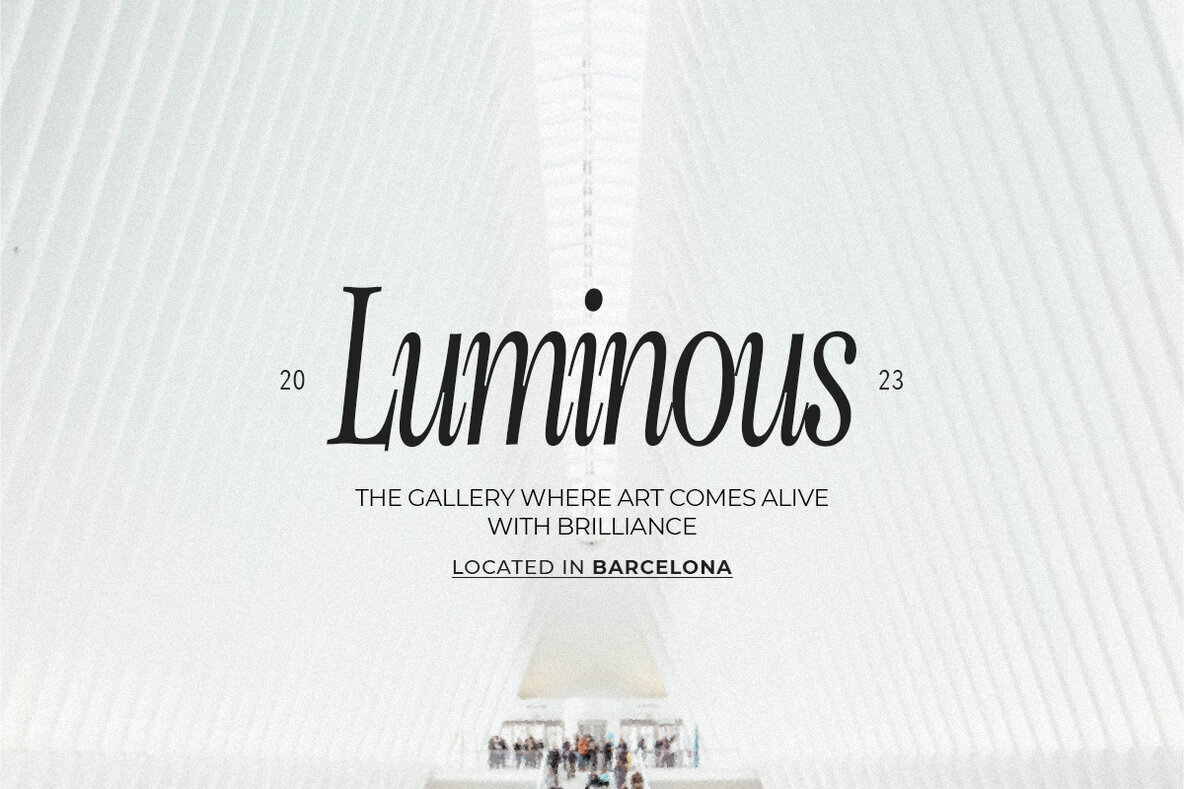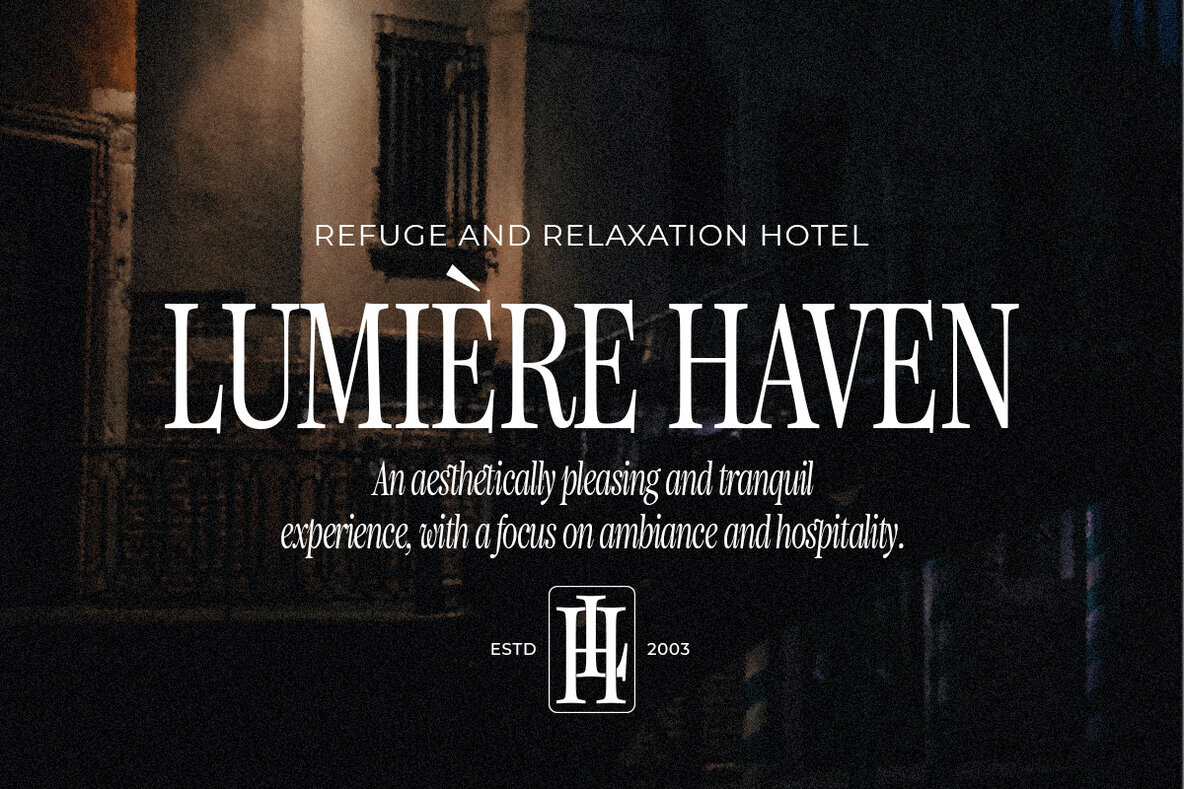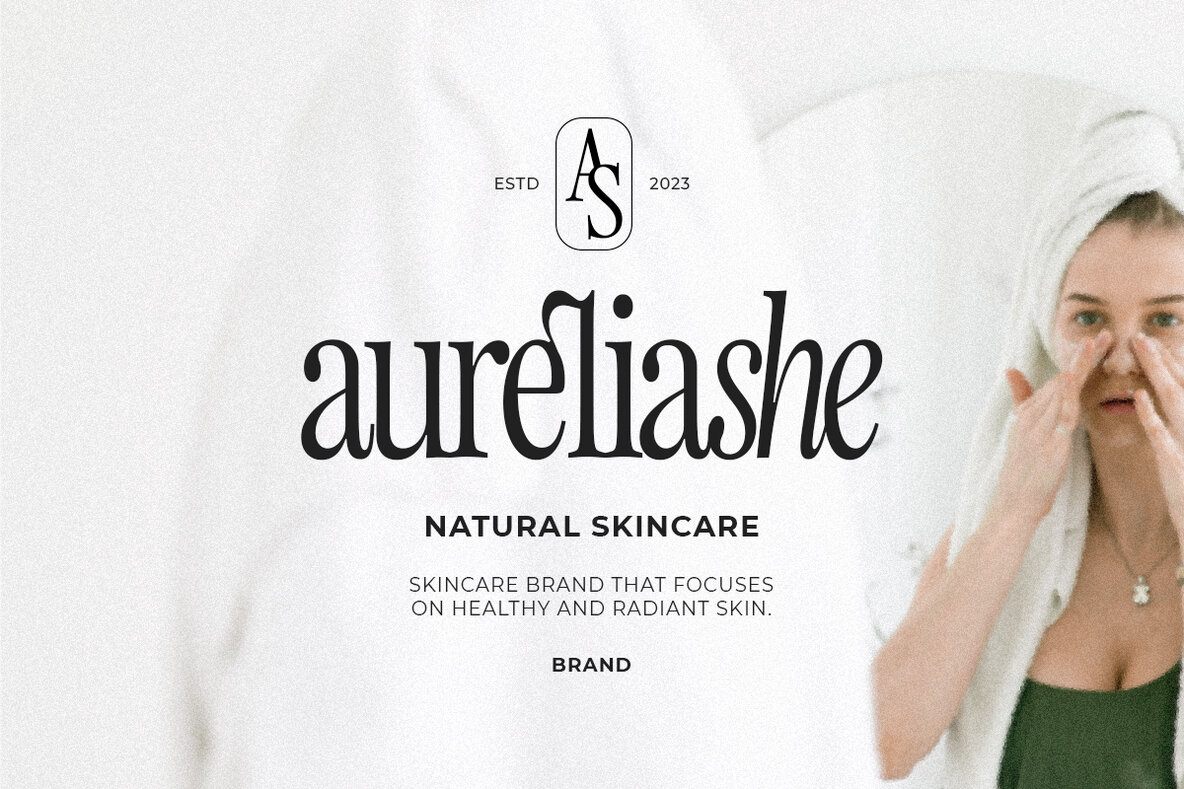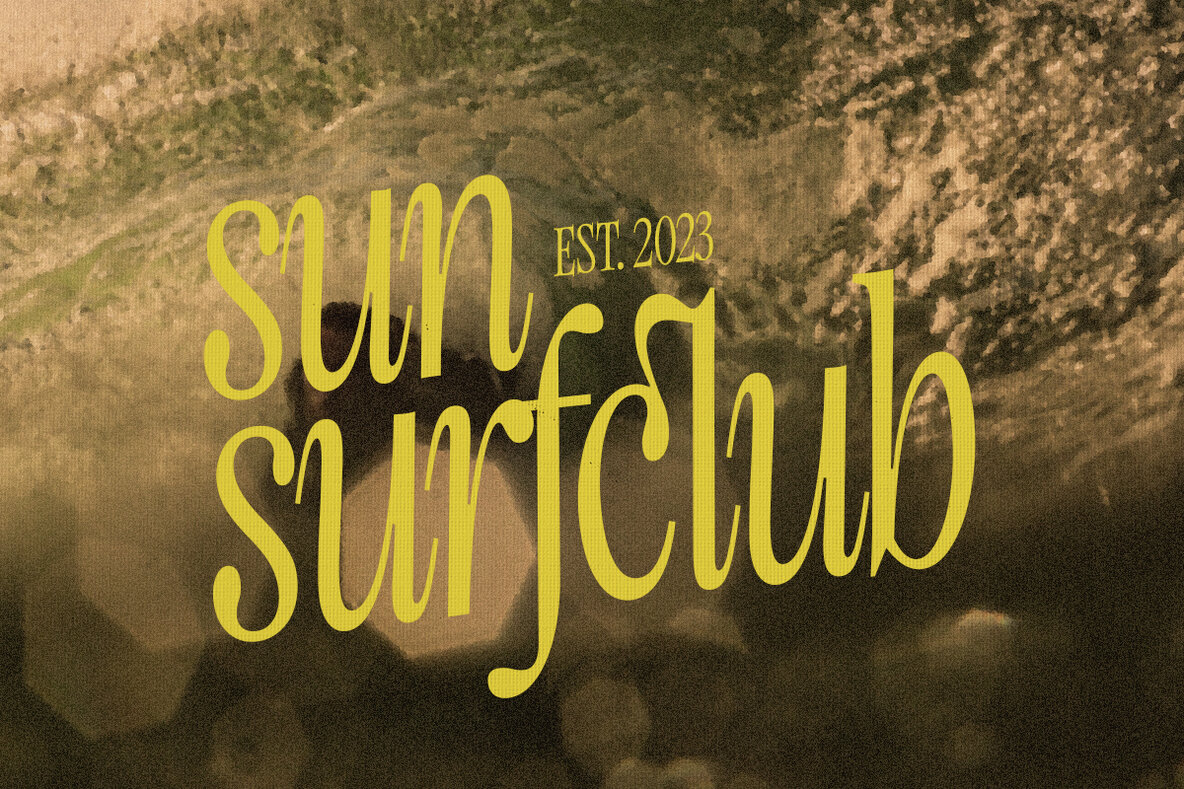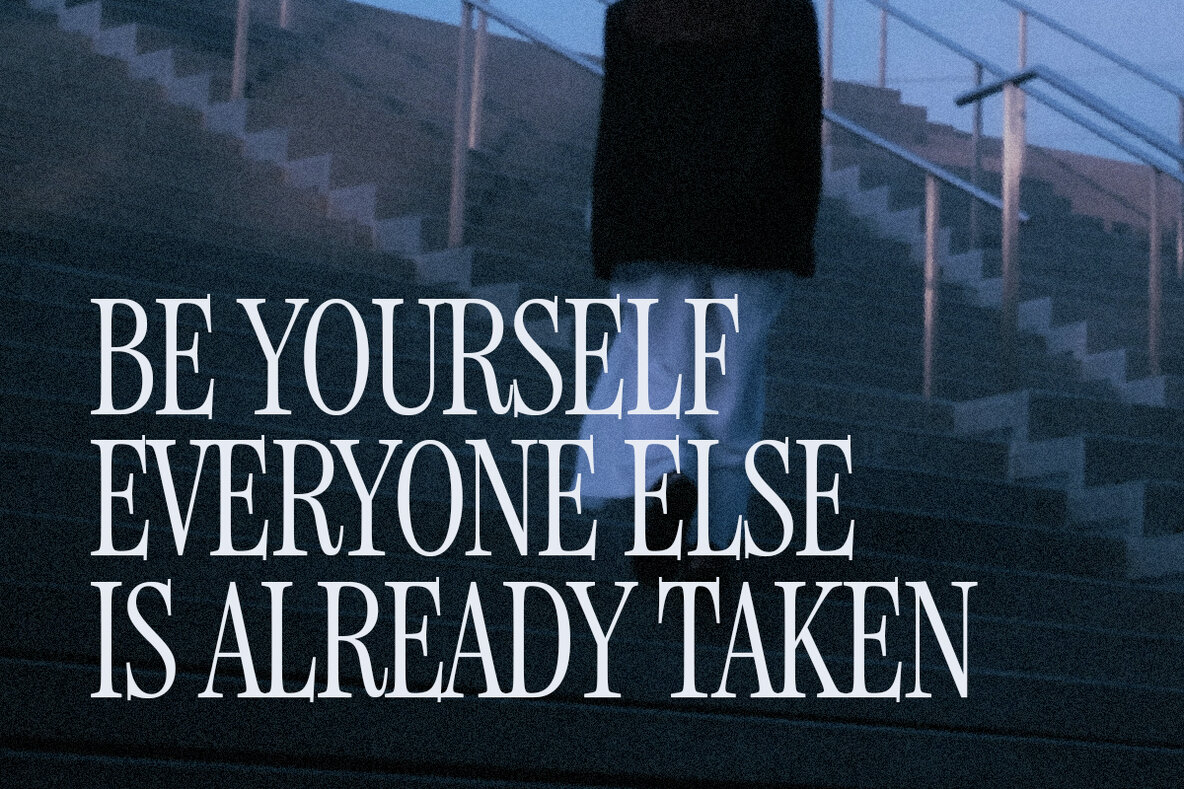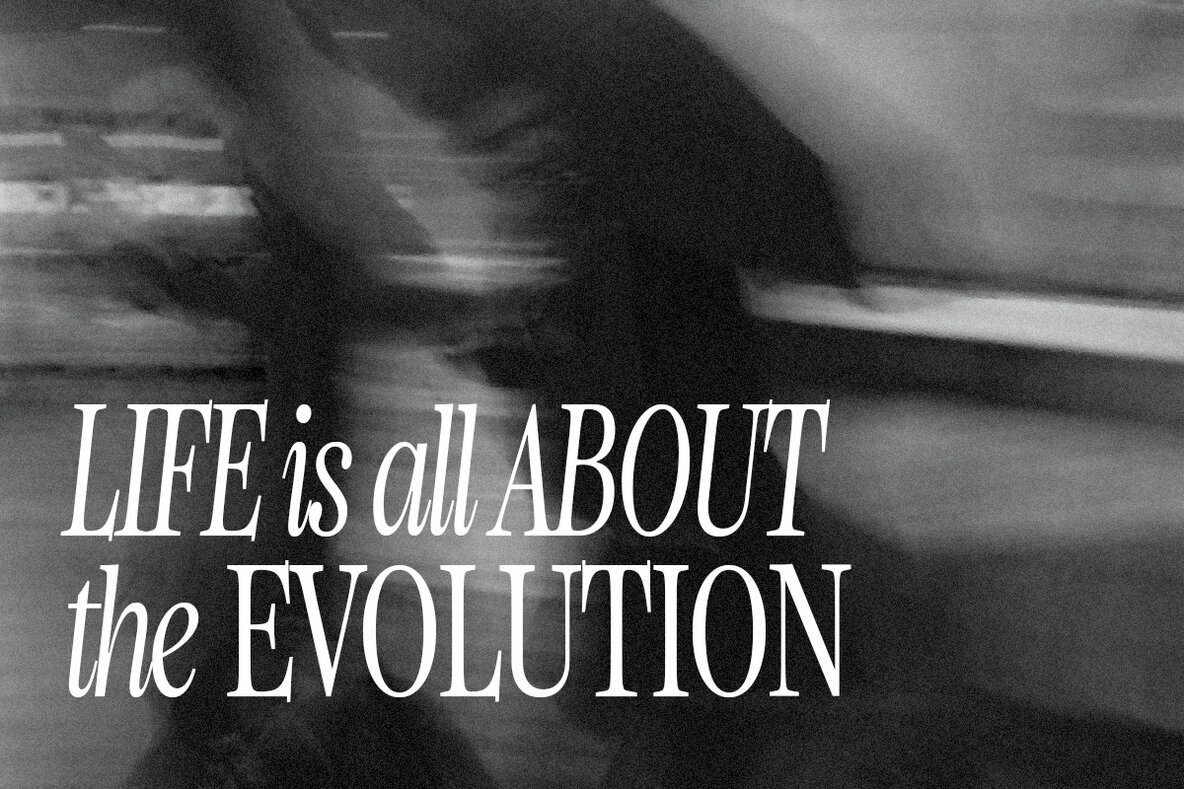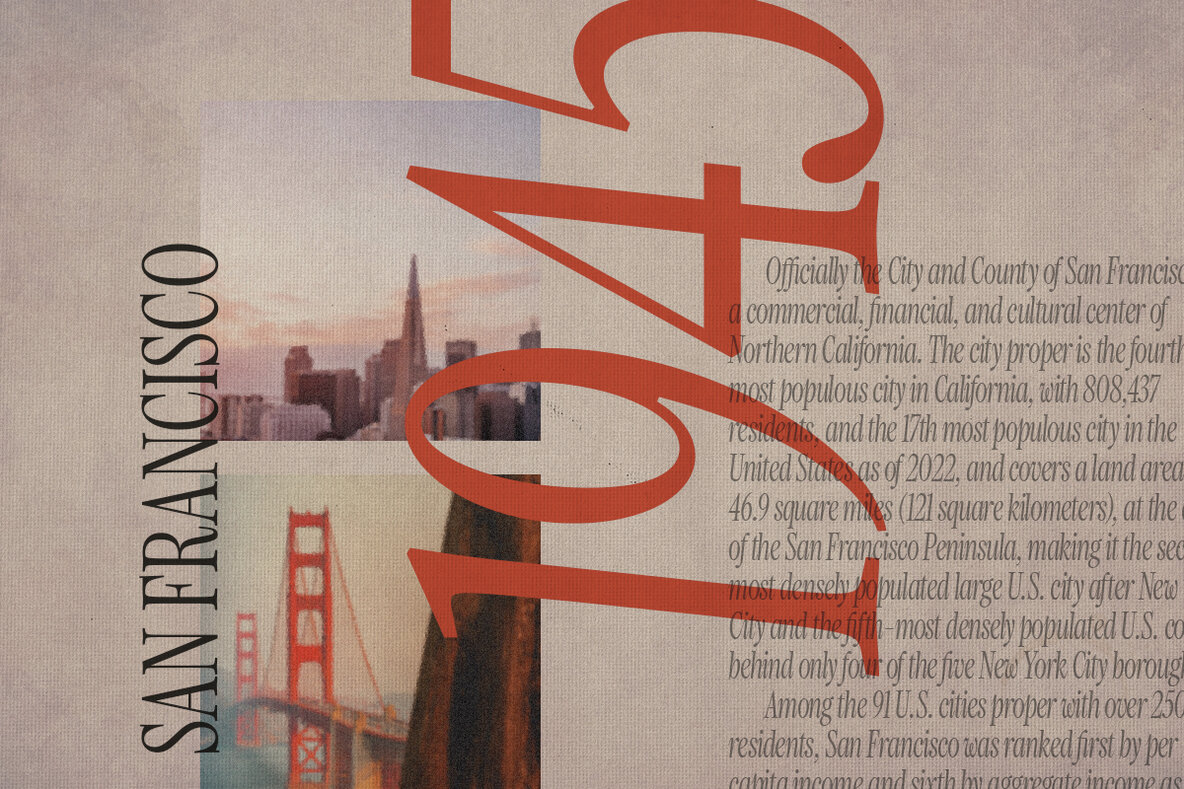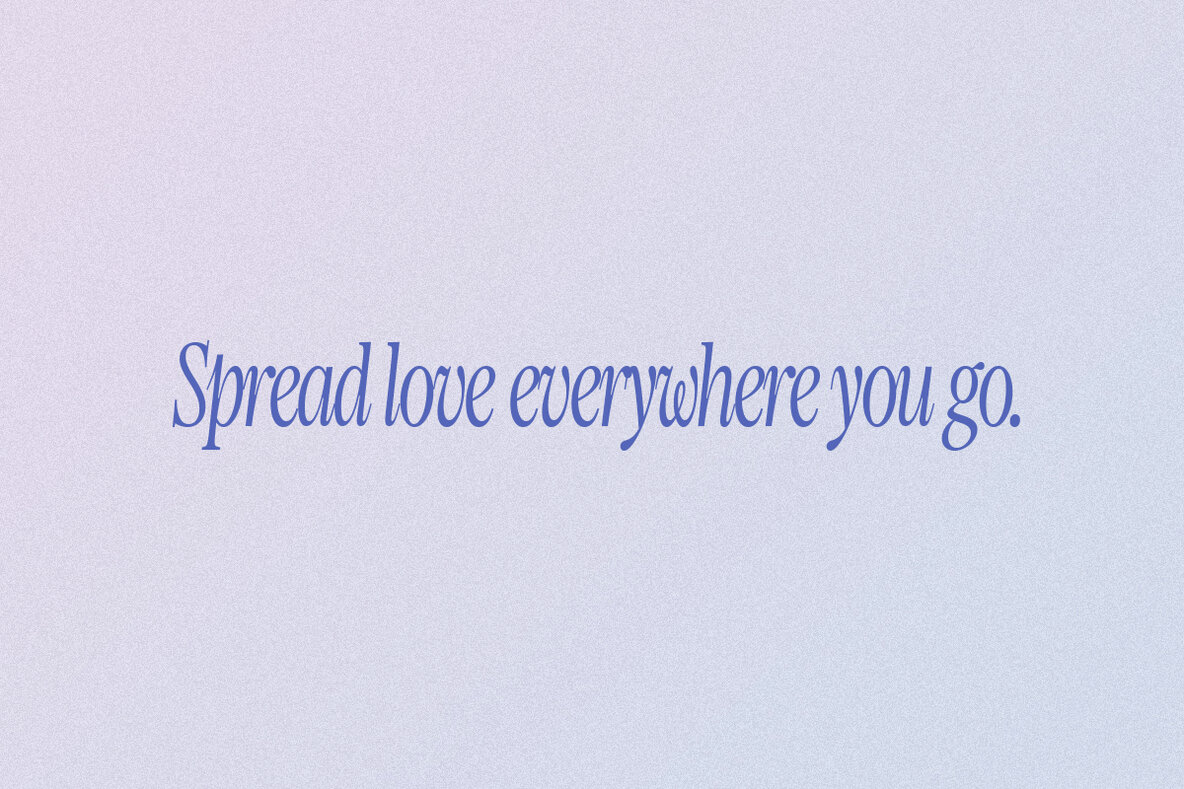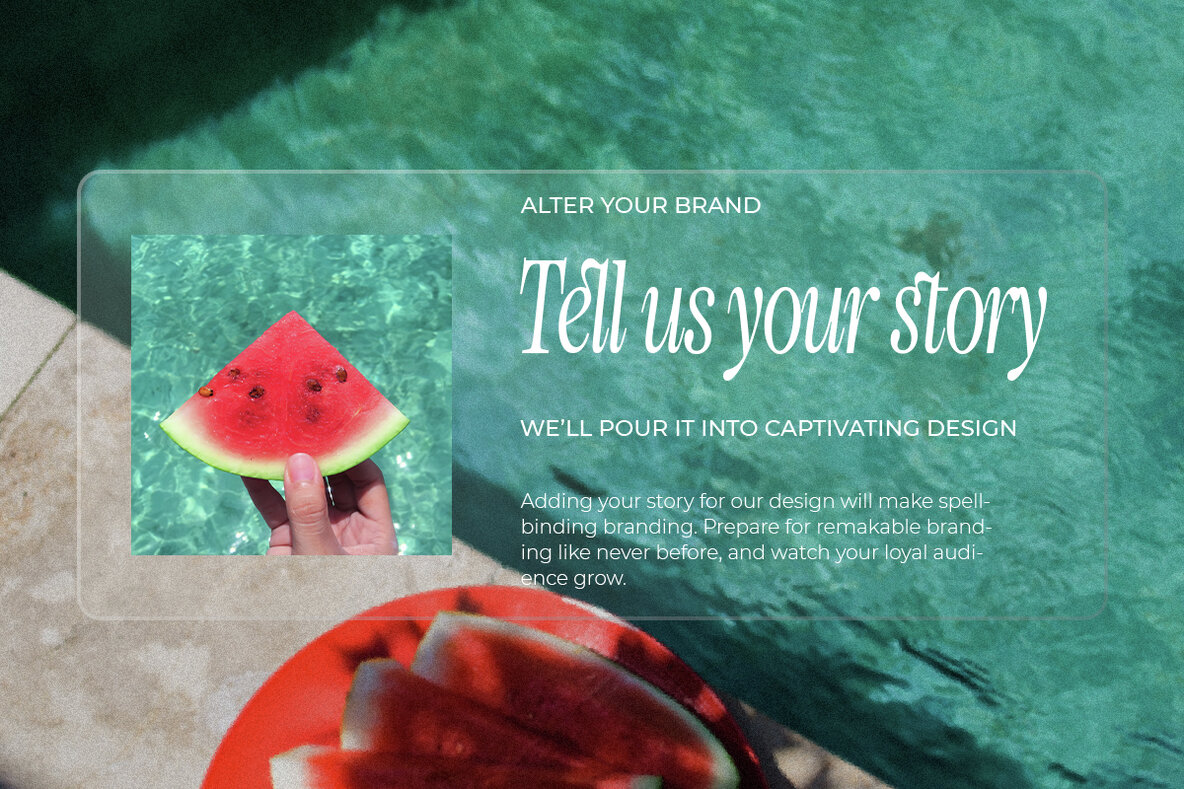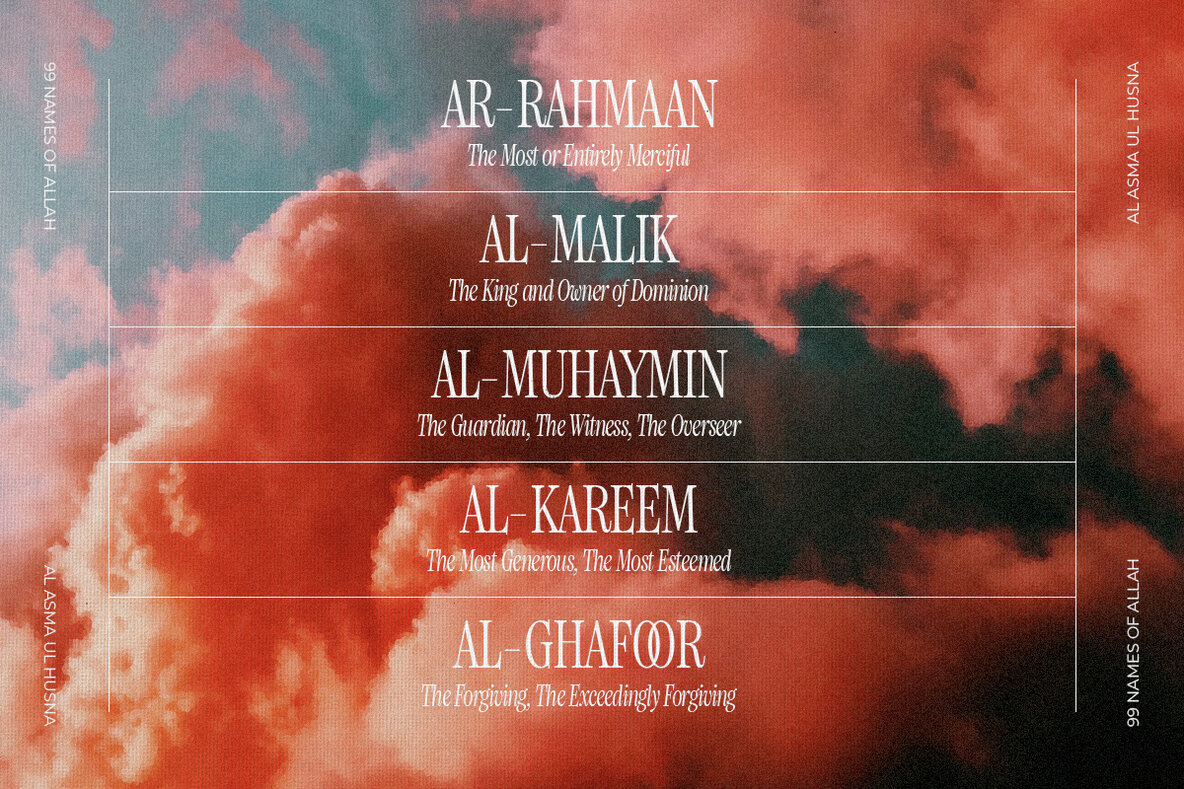
Elyanor Font
Elyanor Regular
Elyanor Italic
Elyanor is a classic display serif font, drawing inspiration from French Renaissance type. It is available in both regular and italic styles, making it versatile for use in various design projects. Elyanor's serifs make it perfect for creating headlines and titles that grab attention. Additionally, its classic look lends itself well to editorial design, where it can add a touch of sophistication and elegance to text-heavy layouts. Elyanor is also suitable for use in monograms, logos, and branding materials, where its distinctive and memorable appearance can help establish a brand's identity. Its versatility extends to poster design, allowing it to create bold and eye-catching typography that stands out from the crowd. Elyanor is a versatile font that offers a unique and shabby-chic aesthetic, perfect for a wide range of design projects.